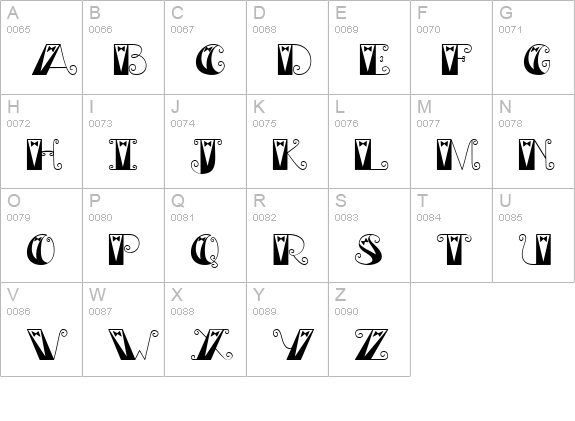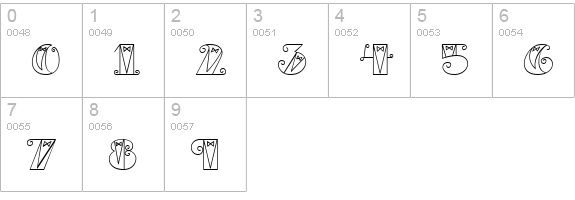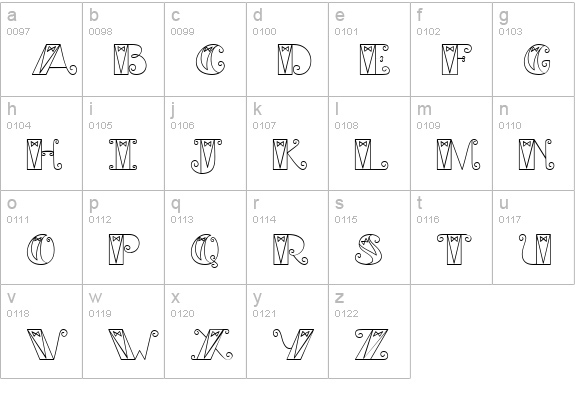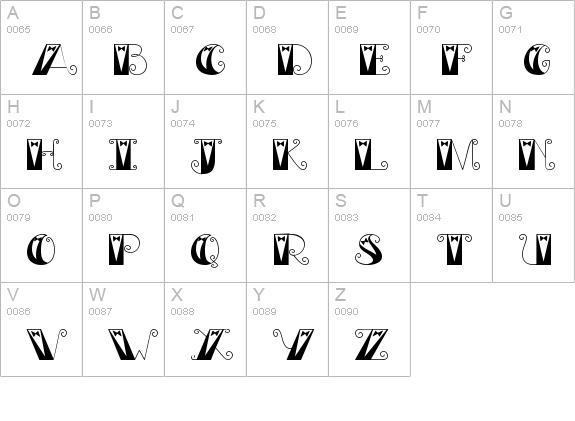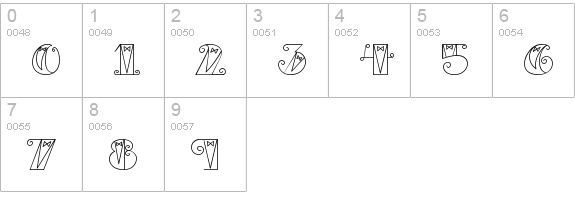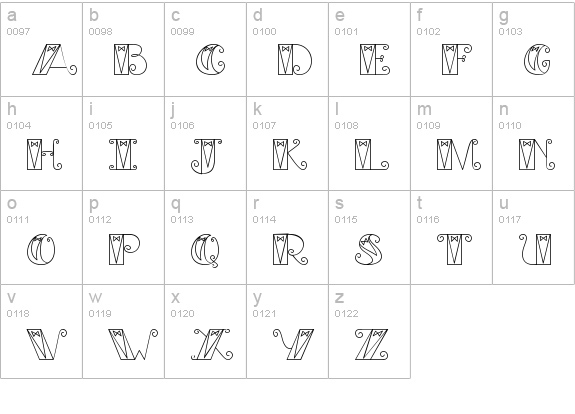
CK Black Tie Font Details
CK Black Tie is a maximum-weight, dramatic variant in the CK typeface family \xE2\x80\x94 well suited to maximum-impact headlines, posters, and packaging.
CK Black Tie font is a sophisticated and elegant typeface that exudes class and luxury. With its sleek, modern design and sharp edges, this font is perfect for creating high-end designs and projects that demand attention. The tall and narrow letterforms give CK Black Tie a refined and upscale look, making it ideal for invitations, branding, and editorial design. What sets CK Black Tie apart is not only its stylish appearance but also its versatility. This font can be used for a wide range of designs, from fashion magazines to luxury product packaging. Its clean lines and distinctive style make it a standout choice for any project that requires a touch of sophistication. The best part? CK Black Tie is available for free download at FontsMarket.com. Now you can add a touch of elegance to your designs without breaking the bank. Don't miss out on the opportunity to elevate your projects with this stunning font. Download CK Black Tie today and bring a touch of luxury to your designs.